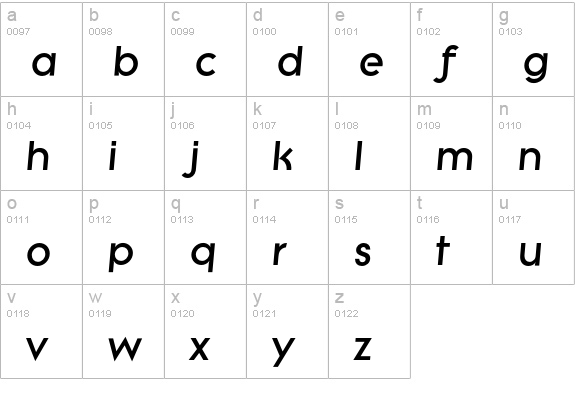
Litera-HeavyIta Font Details
Introducing Litera-HeavyIta, a bold and striking font that commands attention with its heavy weight and distinctive italic style. This font is perfect for making a powerful statement in headlines, titles, and logos. The strong, thick strokes of Litera-HeavyIta exude confidence and authority, making it an ideal choice for projects that require a bold and impactful typography. What's even better is that Litera-HeavyIta is available for free download at FontsMarket.com! Yes, you read that right - this impressive font can be yours at no cost, allowing you to elevate your designs without breaking the bank. Whether you're working on a poster, website, or branding project, Litera-HeavyIta will make sure your message stands out with its bold and eye-catching appearance. Don't miss out on this opportunity to add Litera-HeavyIta to your font collection. Download it today and unleash the power of bold typography in your projects!